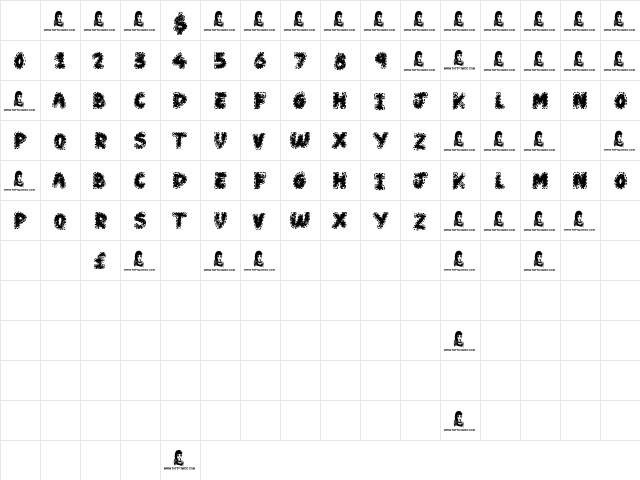
Complete Wear and Tear Regular glyph index. Displaying only characters natively supported by Wear and Tear Regular font.
Wear and Tear is a composed and adaptable typeface that performs quietly and consistently across a wide range of design contexts.
Who designed the Wear and Tear Regular font?